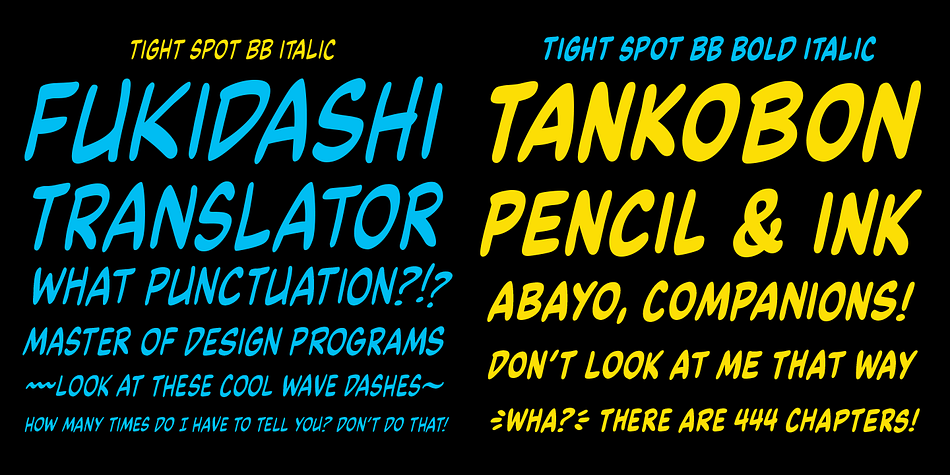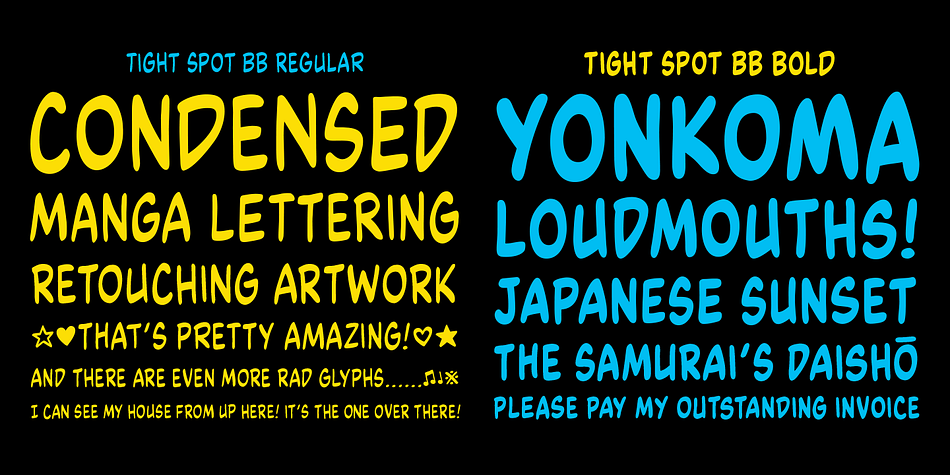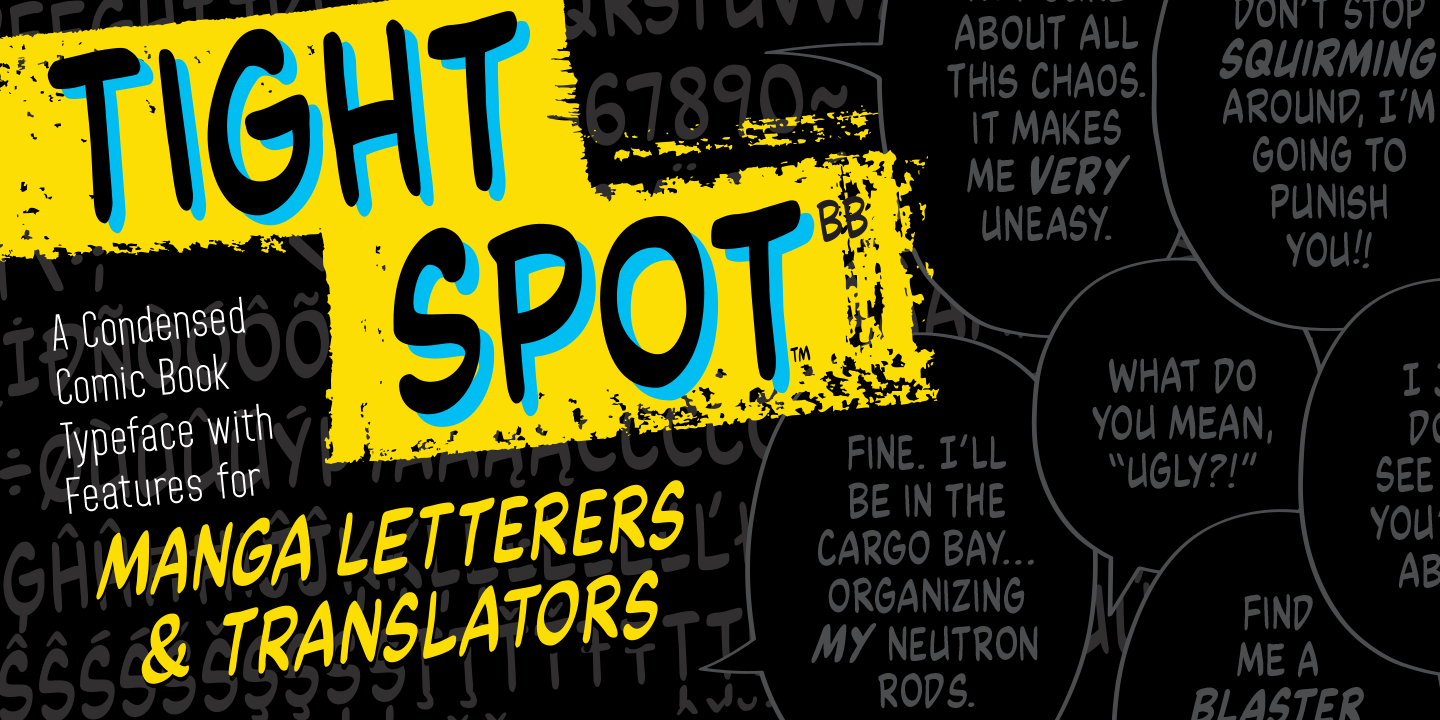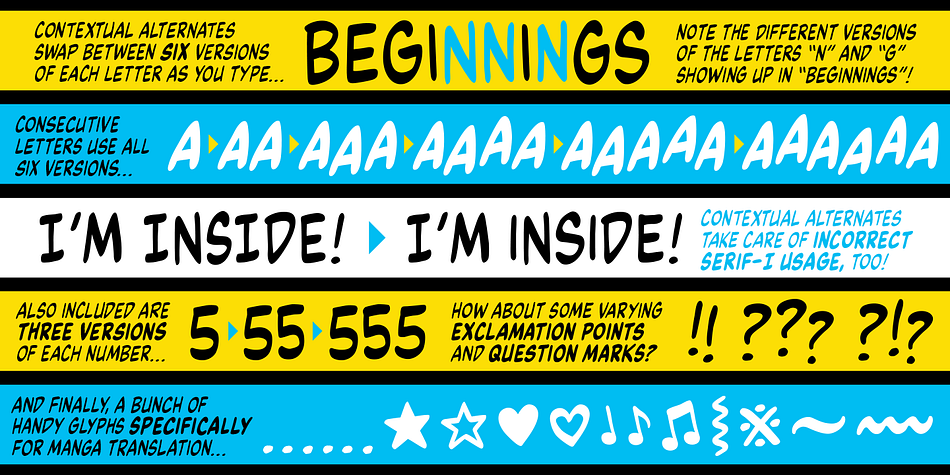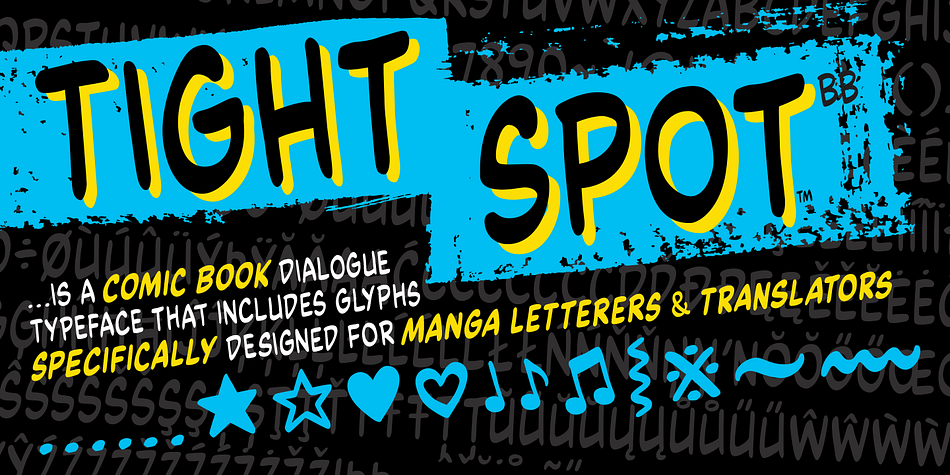
Tight Spot BB
Designed by Nate Piekos, Tight Spot BB is a comic font family. This typeface has four styles and was published by Blambot.
Based on the feedback provided by manga letterers and translators, Blambot’s new comic book dialogue font meets their specific needs for condensed type, unique manga-related glyphs like stars, wavy dashes, and hearts. In addition, Blambot has included contextual alternates to cycle through six sets of alphabets, three sets of numerals, and various punctuation for a more organic, “hand lettered” look. The set includes for fonts: Regular, Italic, Bold, and Bold Italic, each with extensive diacritical letters for multi-language support.